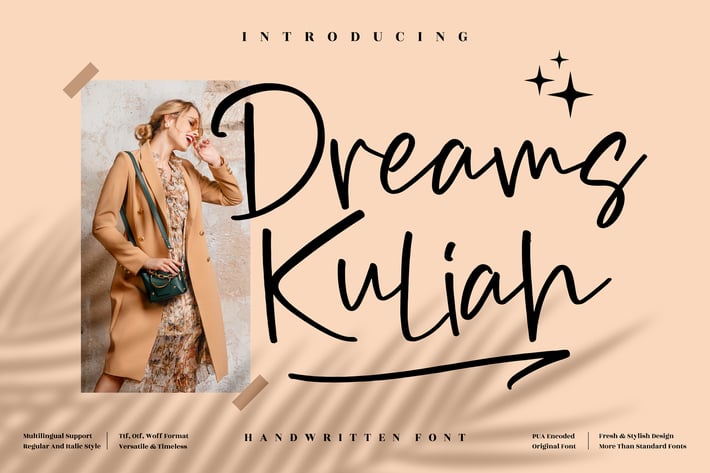
Dreams Kuliah Handwritten Font
Dreams Kuliah is a modern handwritten font that radiates casual sophistication and youthful charm. Its natural strokes and smooth flow make it perfect for creative projects that need a touch of personal warmth and elegance. This font blends professionalism with a relaxed handwritten vibe — ideal for fashion, lifestyle, and branding visuals.
Stylish handwritten script with unique character shapes
Includes uppercase, lowercase, numbers, and punctuation
Suitable for both print and digital designs
Personal branding and social media posts
Fashion lookbooks and photography logos
Invitations and greeting cards
Editorial and lifestyle design projects
* Product packaging or label designs